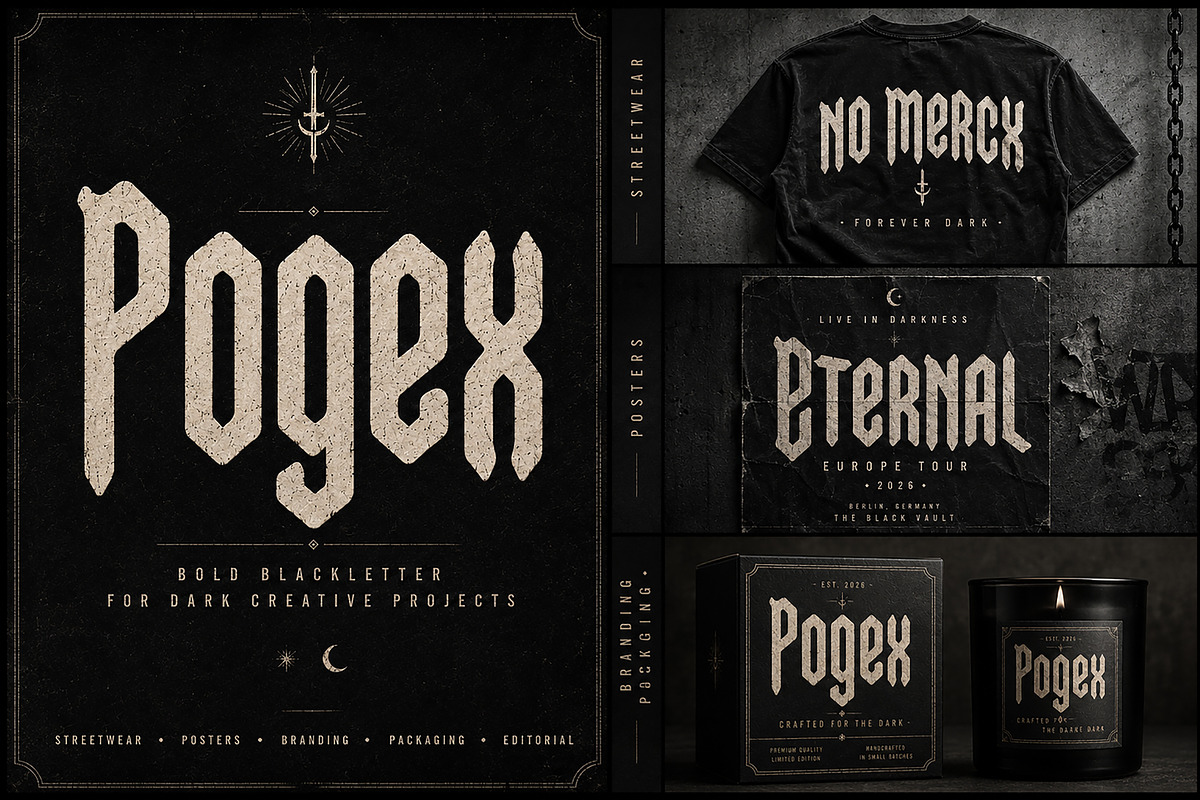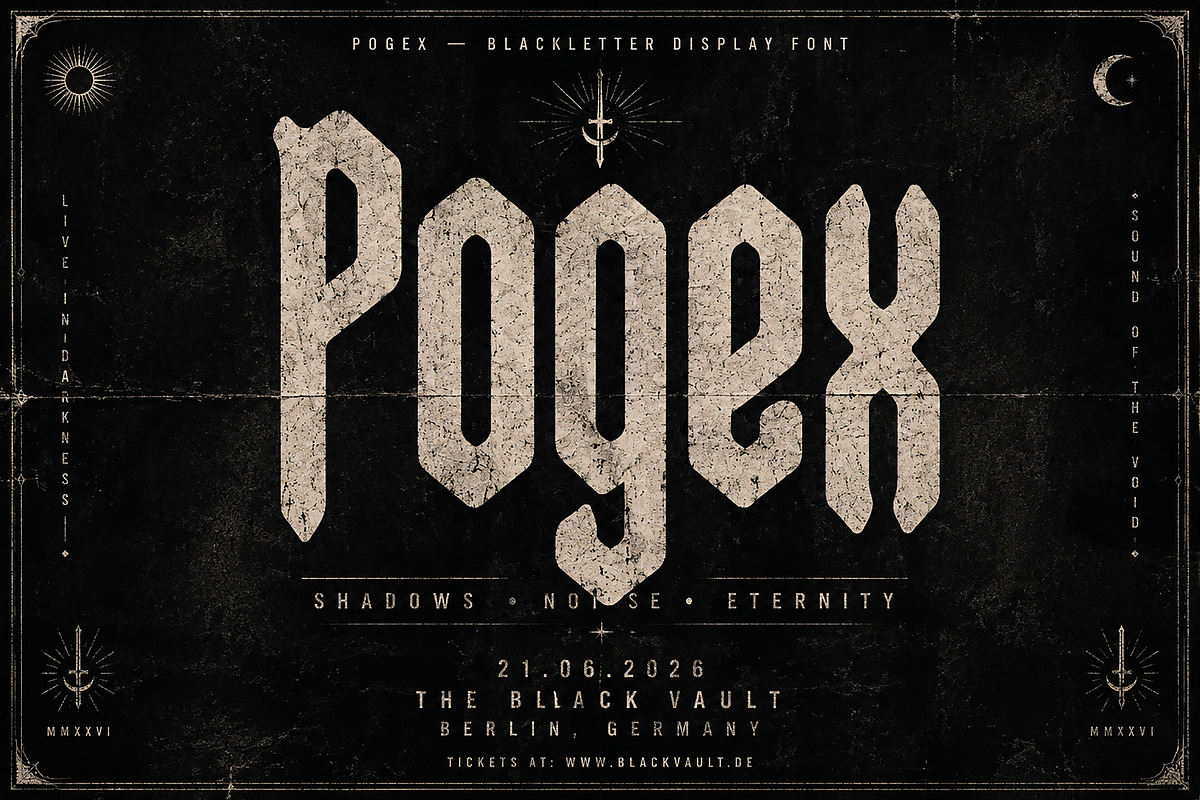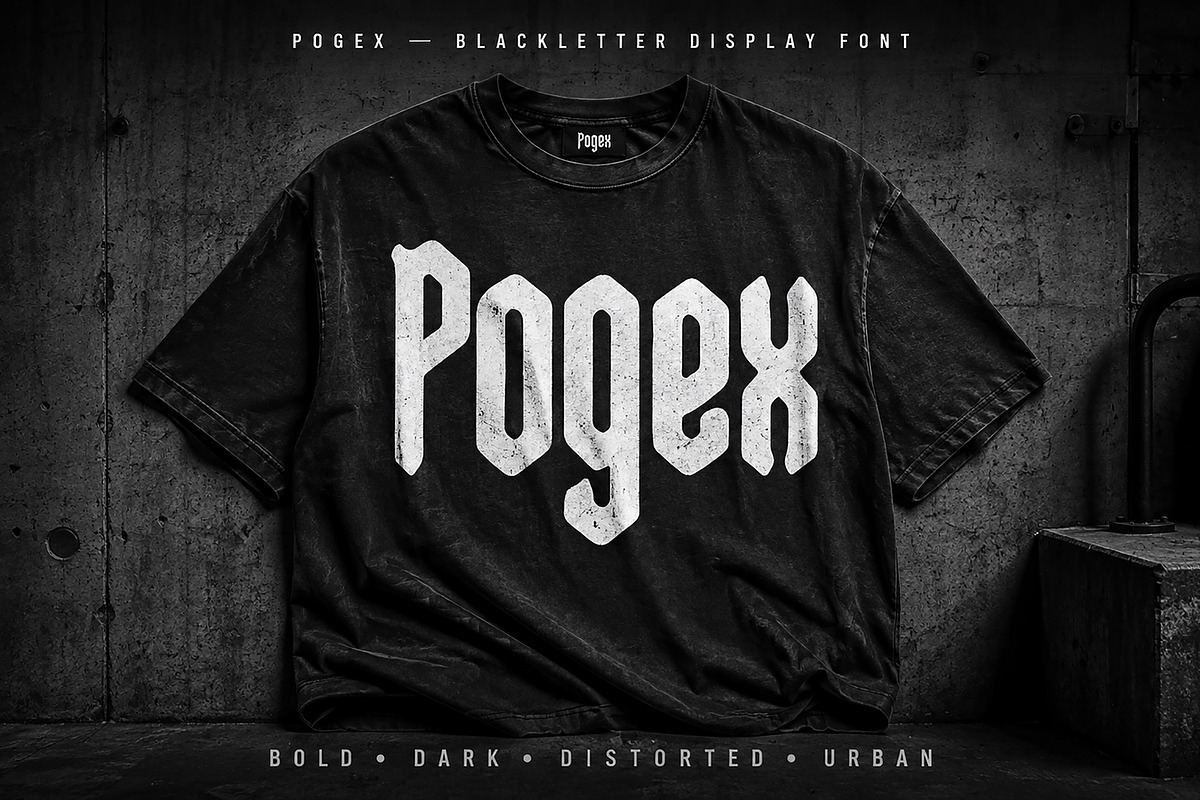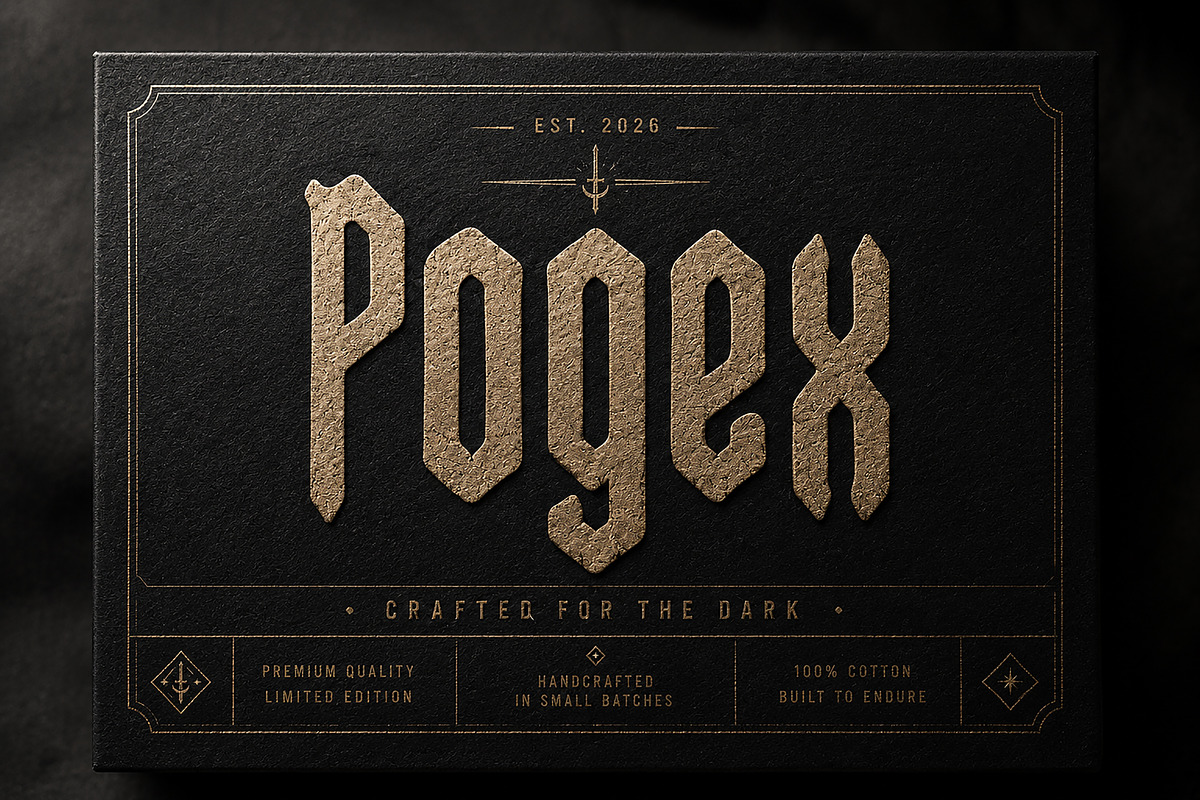
Pogex
POGEX — Blackletter Display Font
Pogex is a bold and distinctive blackletter display typeface designed for dark, edgy, and powerful visual identities. With its tall condensed proportions, sharp geometric forms, and strong gothic character, Pogex instantly creates an intense and memorable typographic presence.
Perfect for designers looking to create streetwear graphics, gothic branding, album artwork, concert posters, book covers, horror designs, packaging, labels, logos, merchandise, and editorial artwork.
Its bold silhouette works especially well at large display sizes, making it ideal for attention-grabbing headlines and impactful compositions.
Streetwear & T-Shirt Designs
Gothic & Dark Branding
Logo & Brand Identity
Album & Music Artwork
Concert & Event Posters
Horror & Dark Fantasy Designs
Book & Cover Designs
Packaging & Product Labels
Merchandise & Apparel
Editorial & Poster Design
Creative Typography Projects
Style: Blackletter / Gothic Display
Bring a bold, dark, and rebellious character to your next creative project with Pogex.